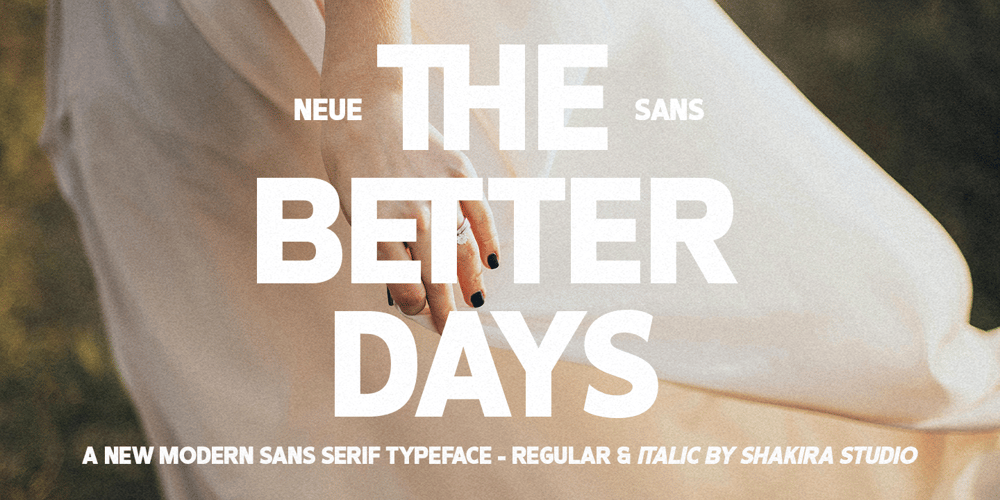
The Better Days
The Better Days font
The Better Days Font Family was designed by Idhham Cholid Rikzano Yahya and published by Shakira Studio. The Better Days contains 2 styles and family package options. “Introducing The Better Days, a modern Sans Serif font that embodies simplicity and clarity. Perfect for contemporary branding and digital projects, this versatile typeface is available in both regular and italic versions. Its clean lines and minimalist style make it ideal for headlines, logos, and body text. Enhance your design projects with the modern elegance of The Better Days.”Here’s what you get: Regular & Italic All Multilingual symbol Opentype features ( ligature, alternate ) Accessible in the Adobe Illustrator, Adobe Photoshop, Adobe InDesign, even work on Microsoft Word. PUA Encoded Characters – Fully accessible without additional design software. Multilingual character supports : (Afrikaans, Albanian, Catalan, Croatian, Czech, Danish, Dutch, English, Estonian, Finnish, French, German, Hungarian, Icelandic, Italian, Lithuanian, Maltese, Norwegian, Polish, Portuguese, Slovenian, Spanish, Swedish, Turkish, Zulu)Follow my shop for upcoming updates, and for more of my work, If you need a custom license or have questions please visit our website: www.shakirastudio.comThank you!Shakira Studio